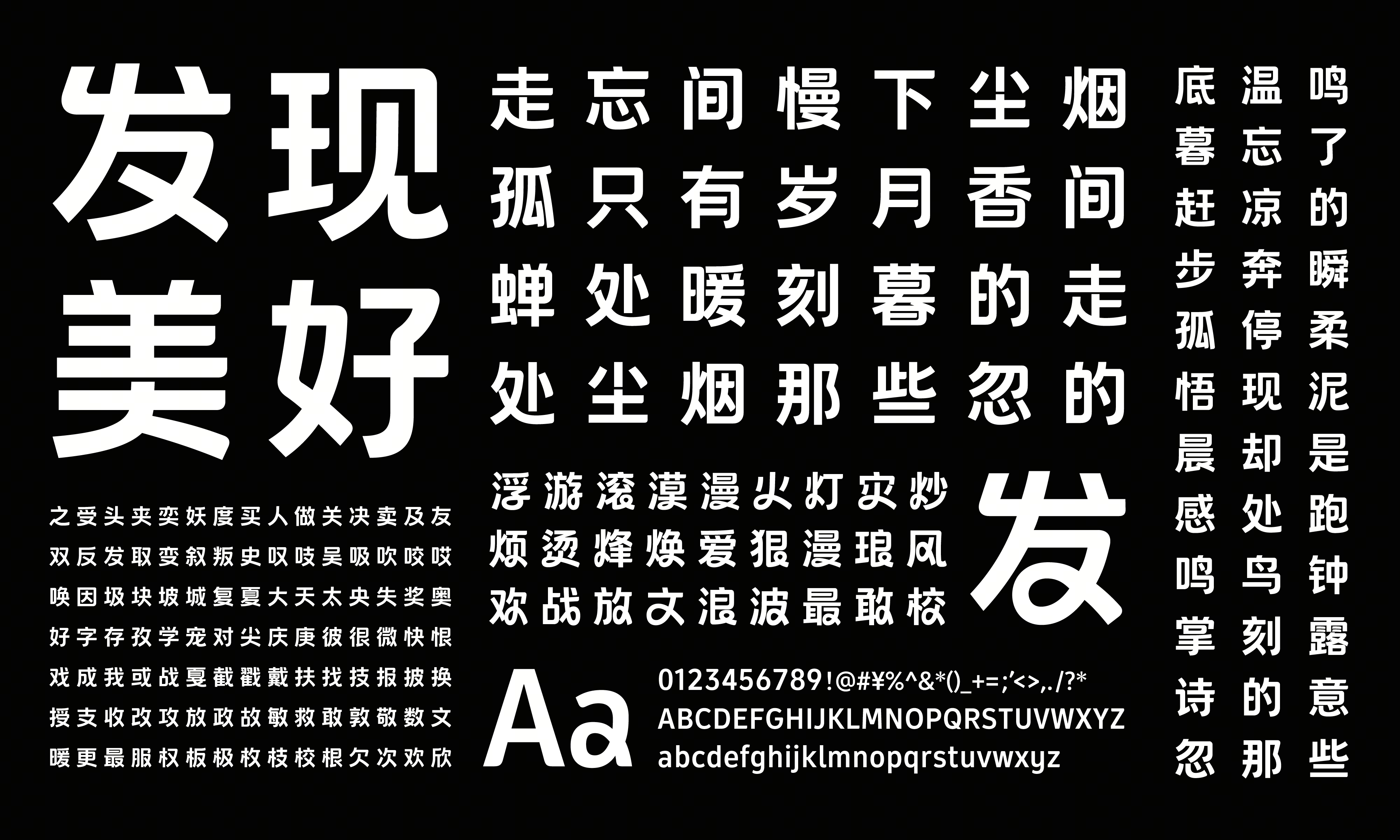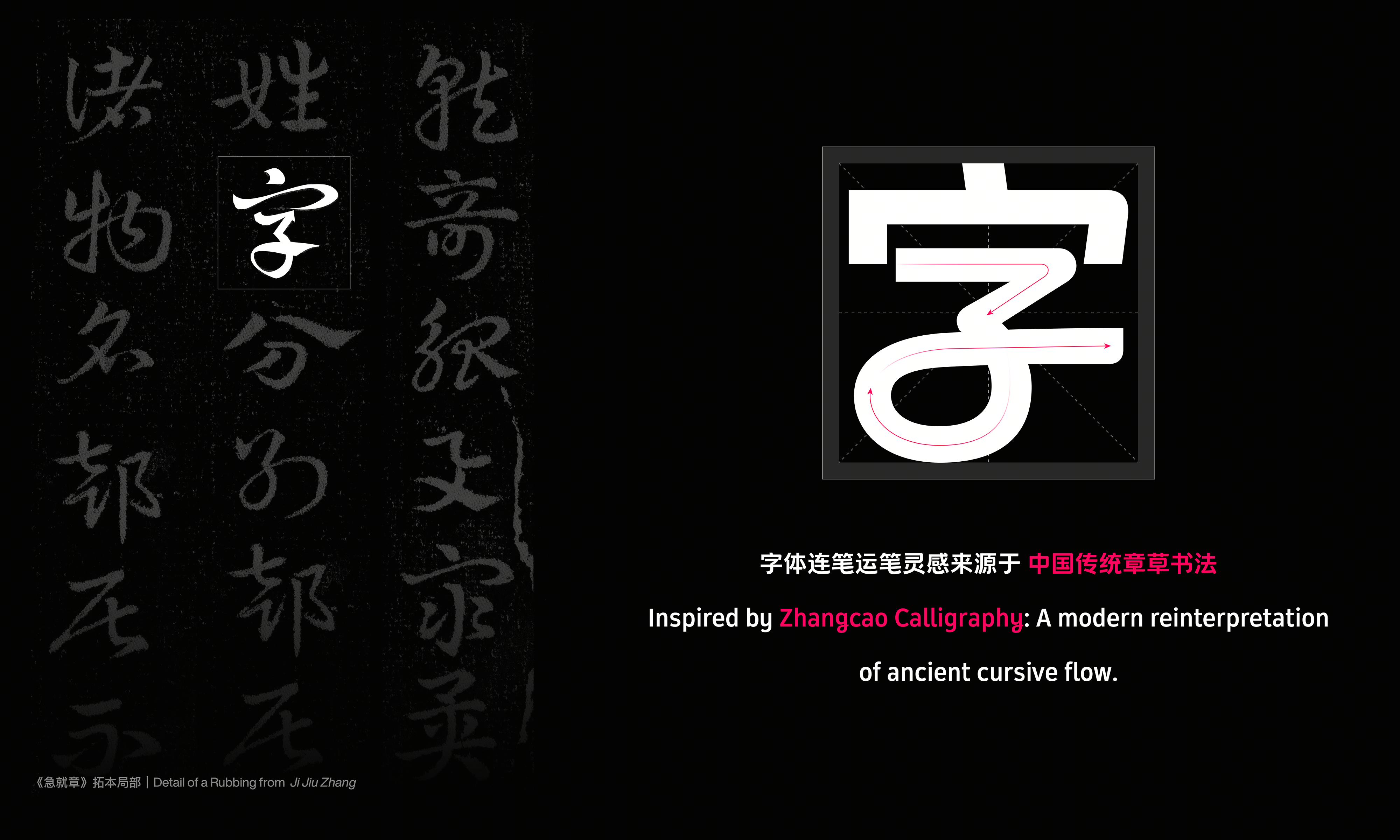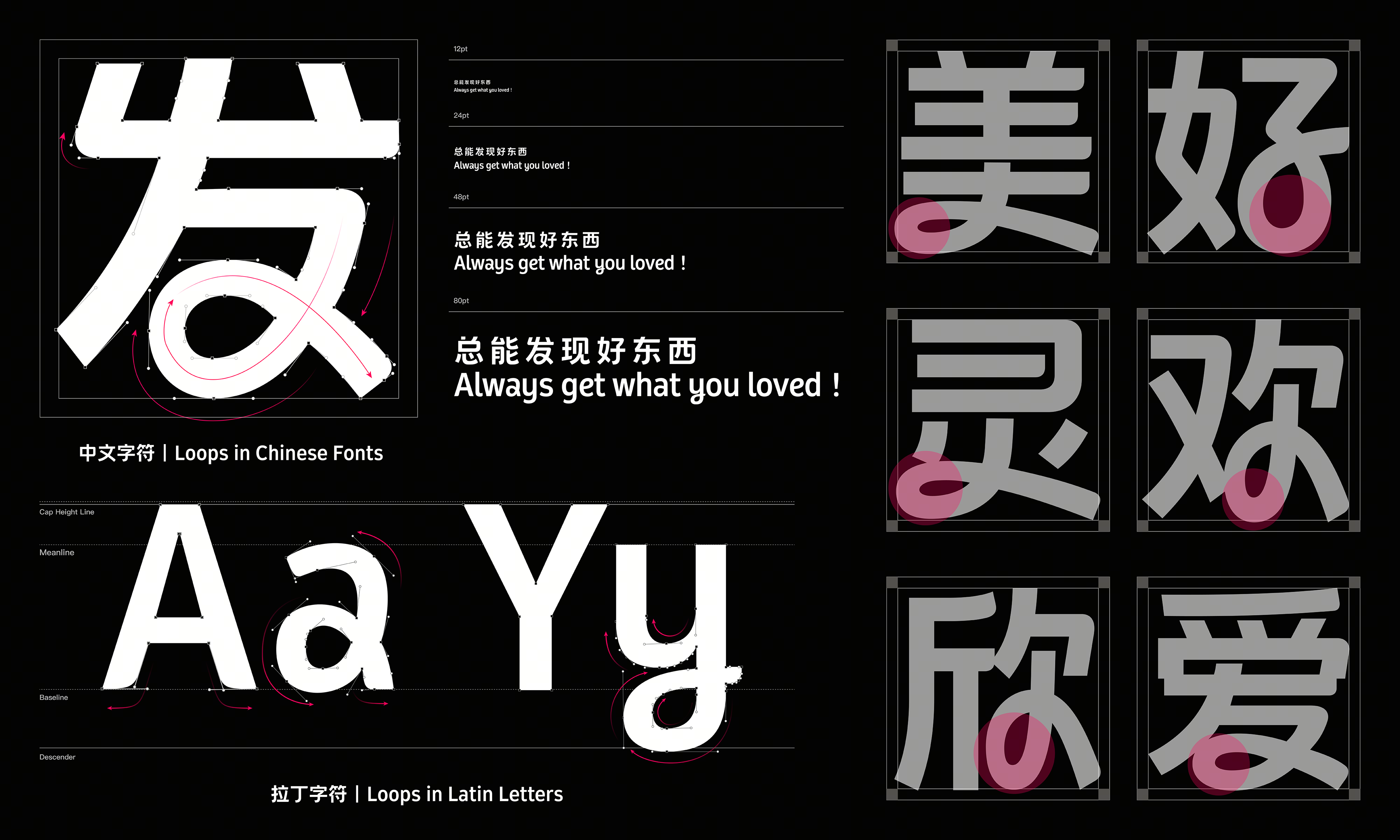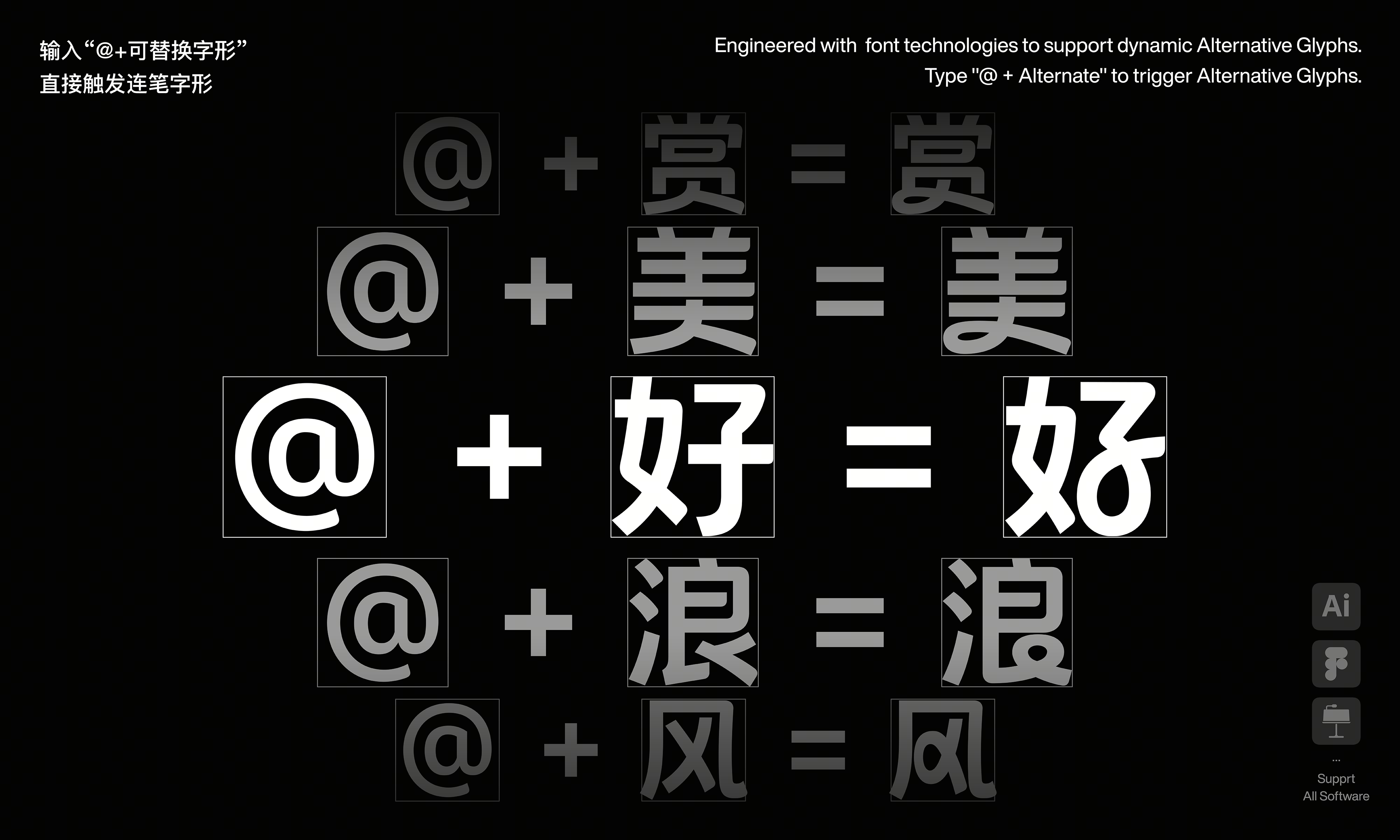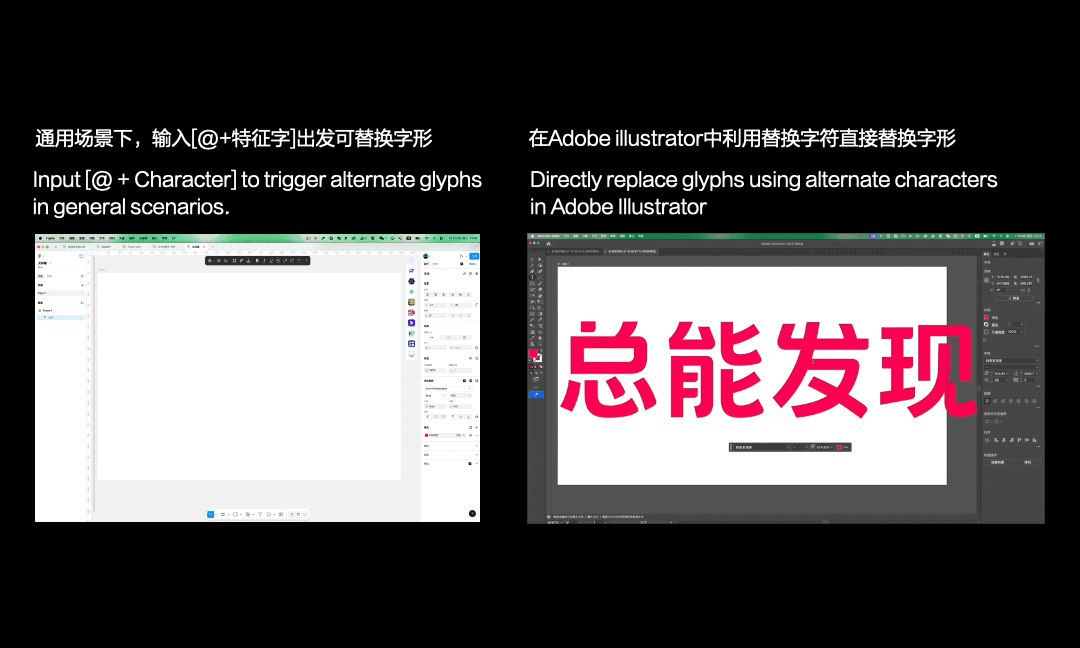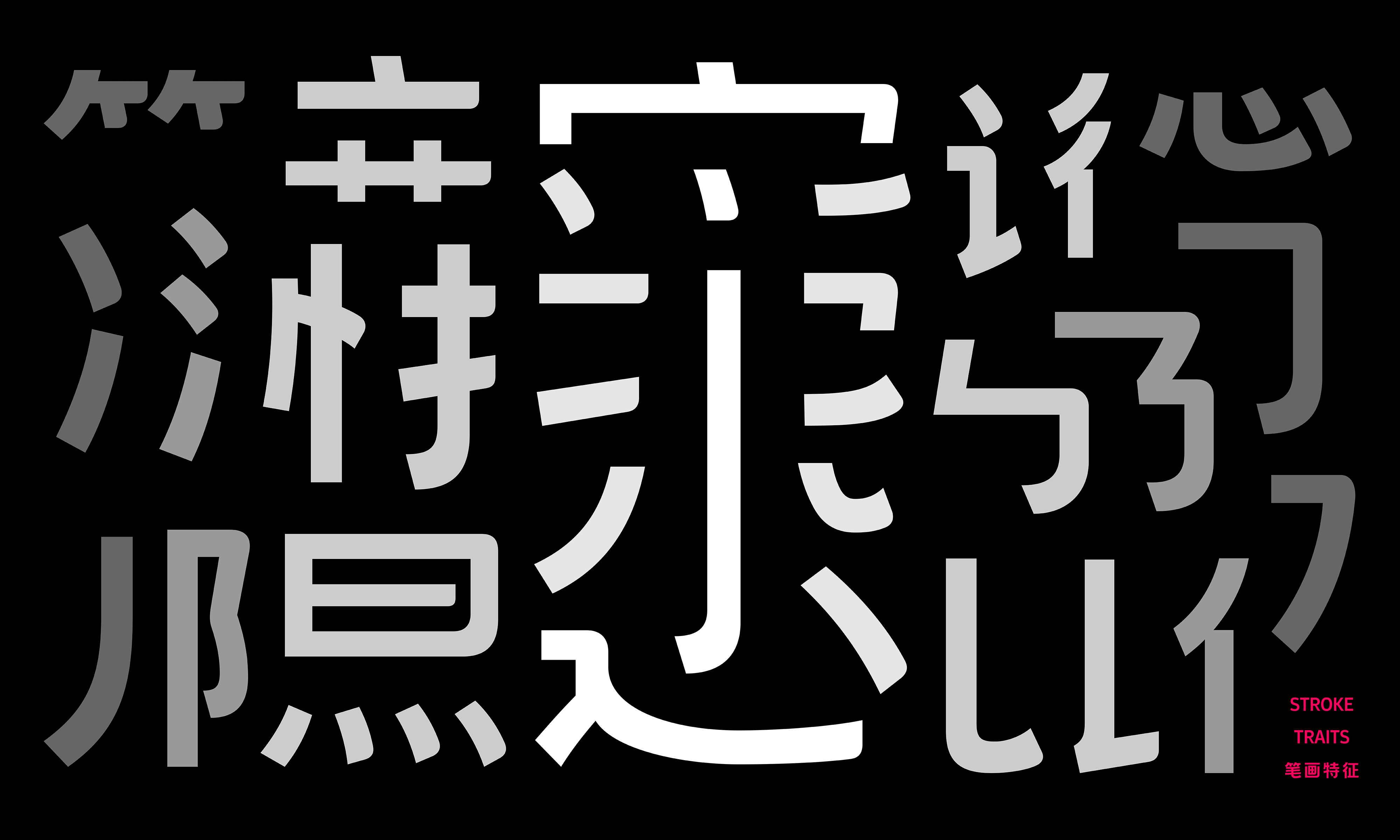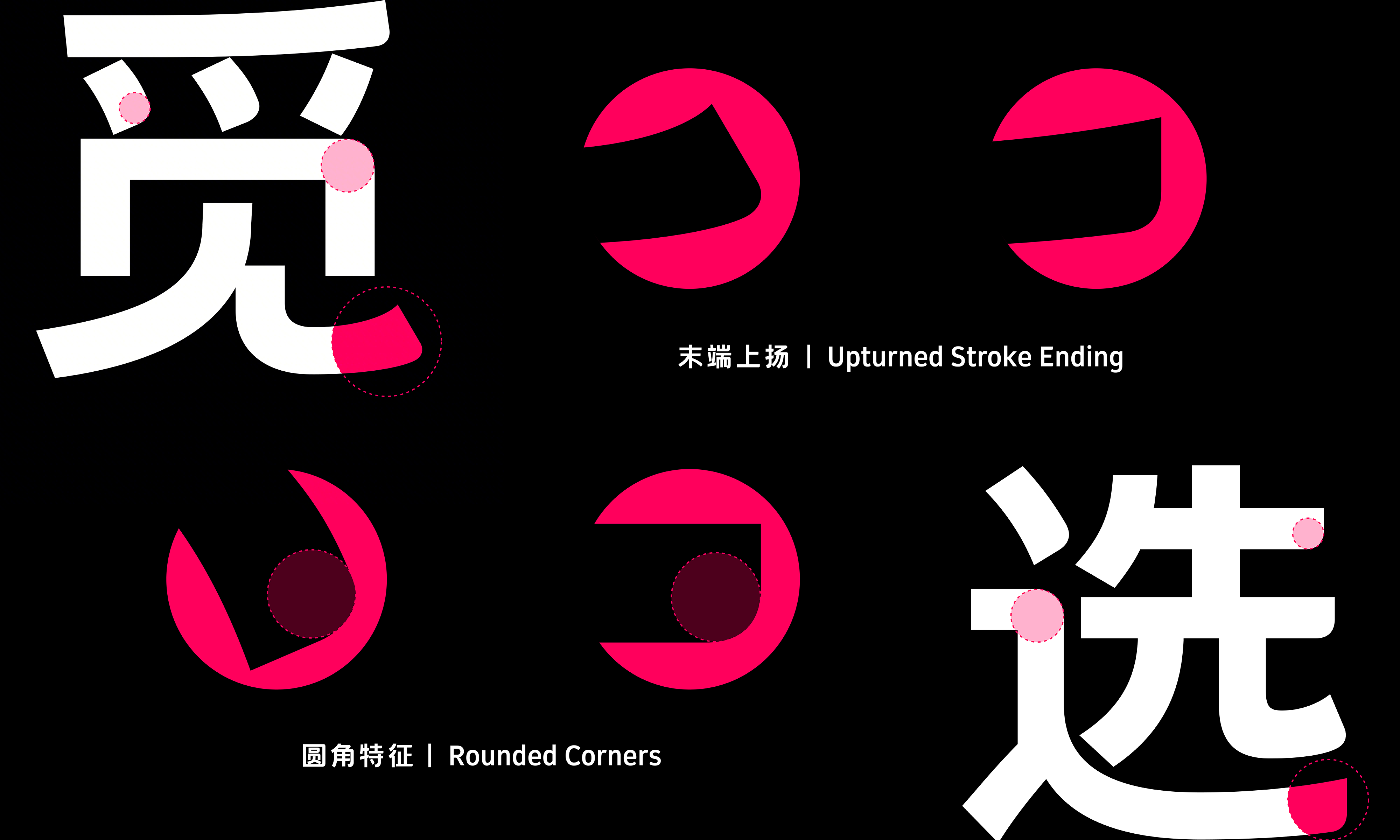
Douyin Faxian Sans
Douyin Faxian Sans is a brand-new commercial typeface created exclusively for e-commerce applications.It balances humanistic warmth with marketing practicality. The Chinese characters come in two interchangeable forms: Regular and Loop, making it a custom brand font family equipped with interchangeable glyph functionality.
The design features an approachable and rounded aesthetic, preserving the vividness of handwriting through connected strokes. The strokes are dynamic and lively, while satisfying the visual identity requirements of e-commerce scenarios such as mobile interfaces and offline advertising.
We hope Douyin Faxian Sans can capture the inspirational moments in users’ lives and make commerce more beautiful and heartfelt.